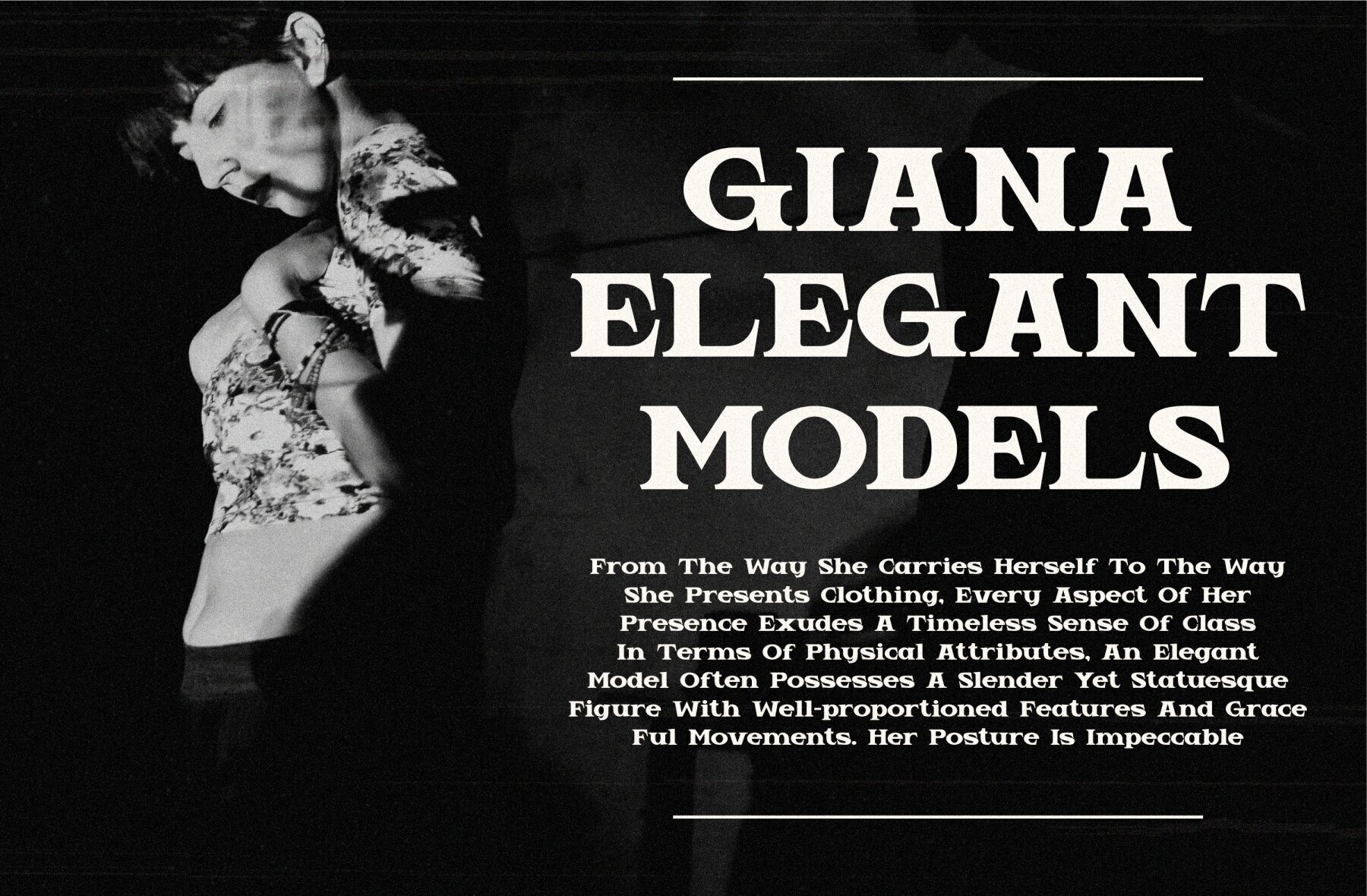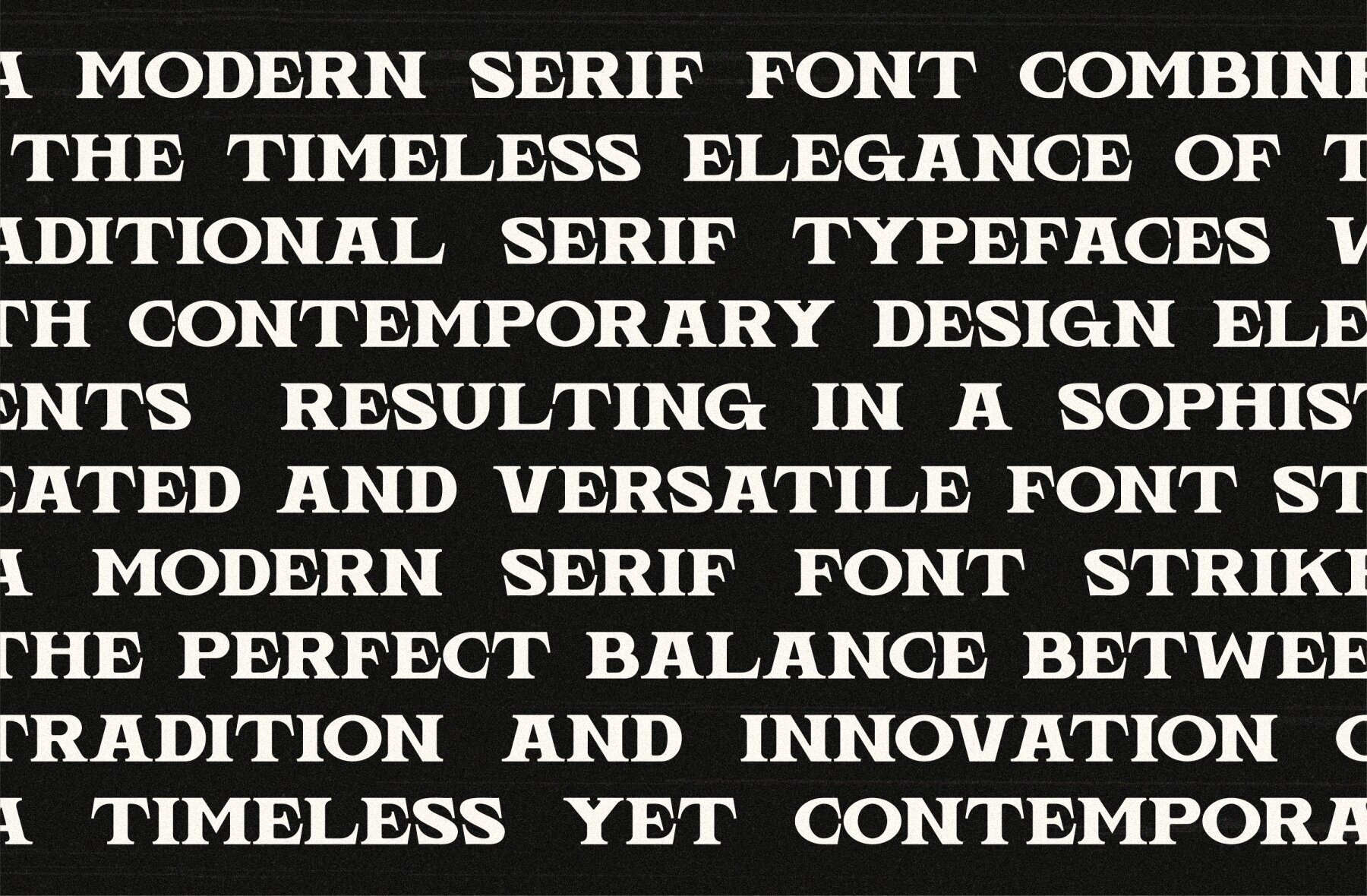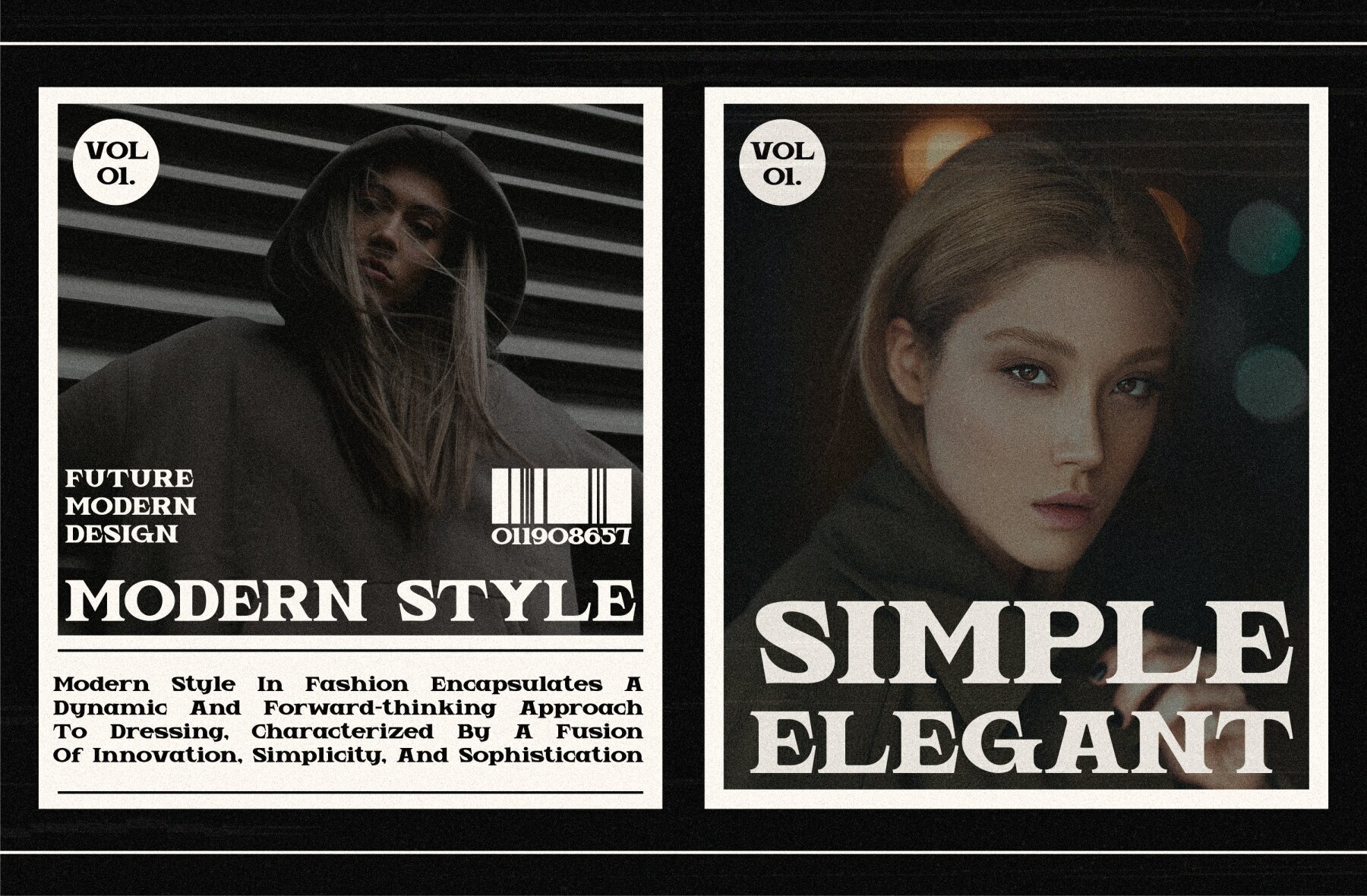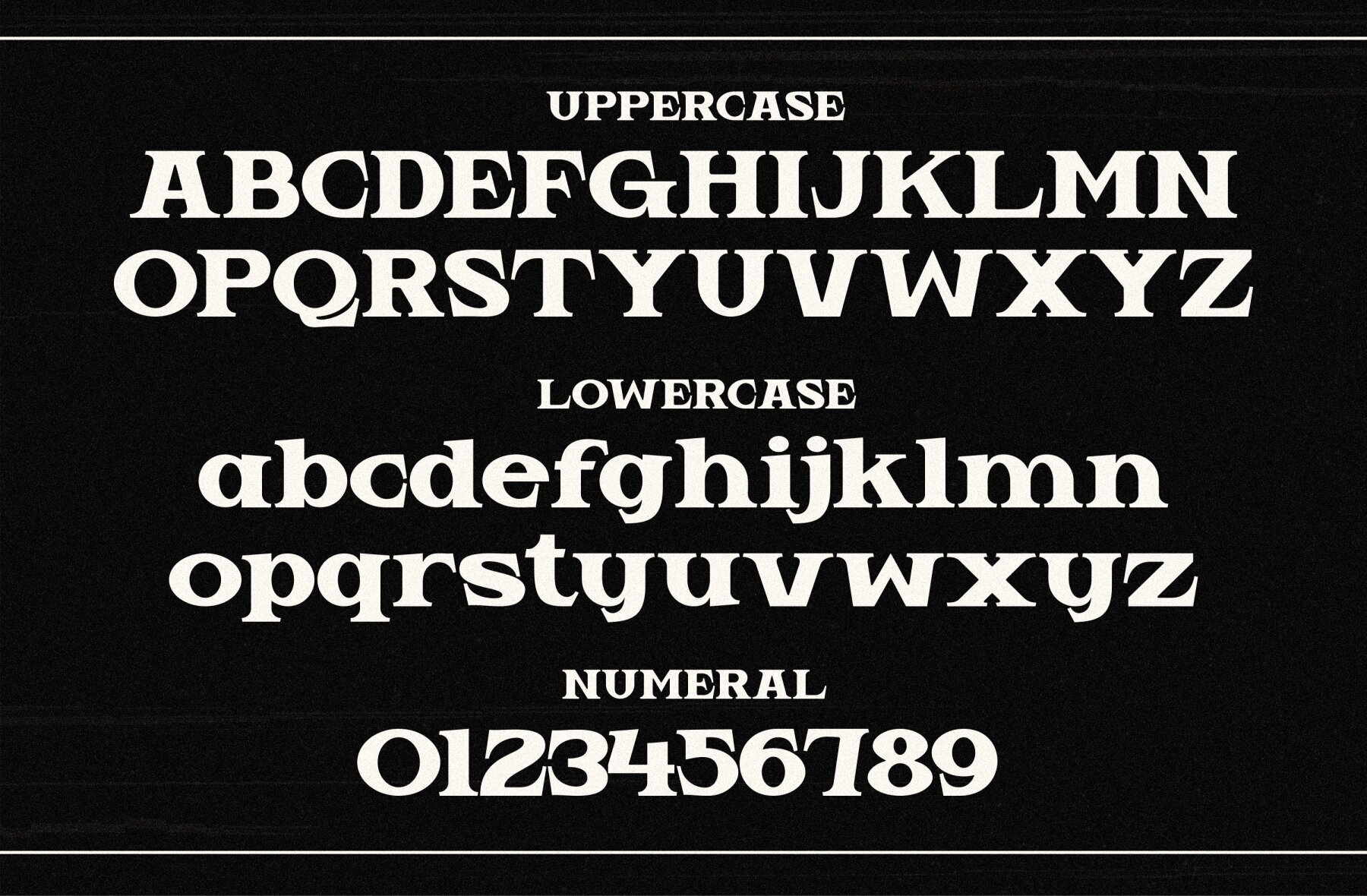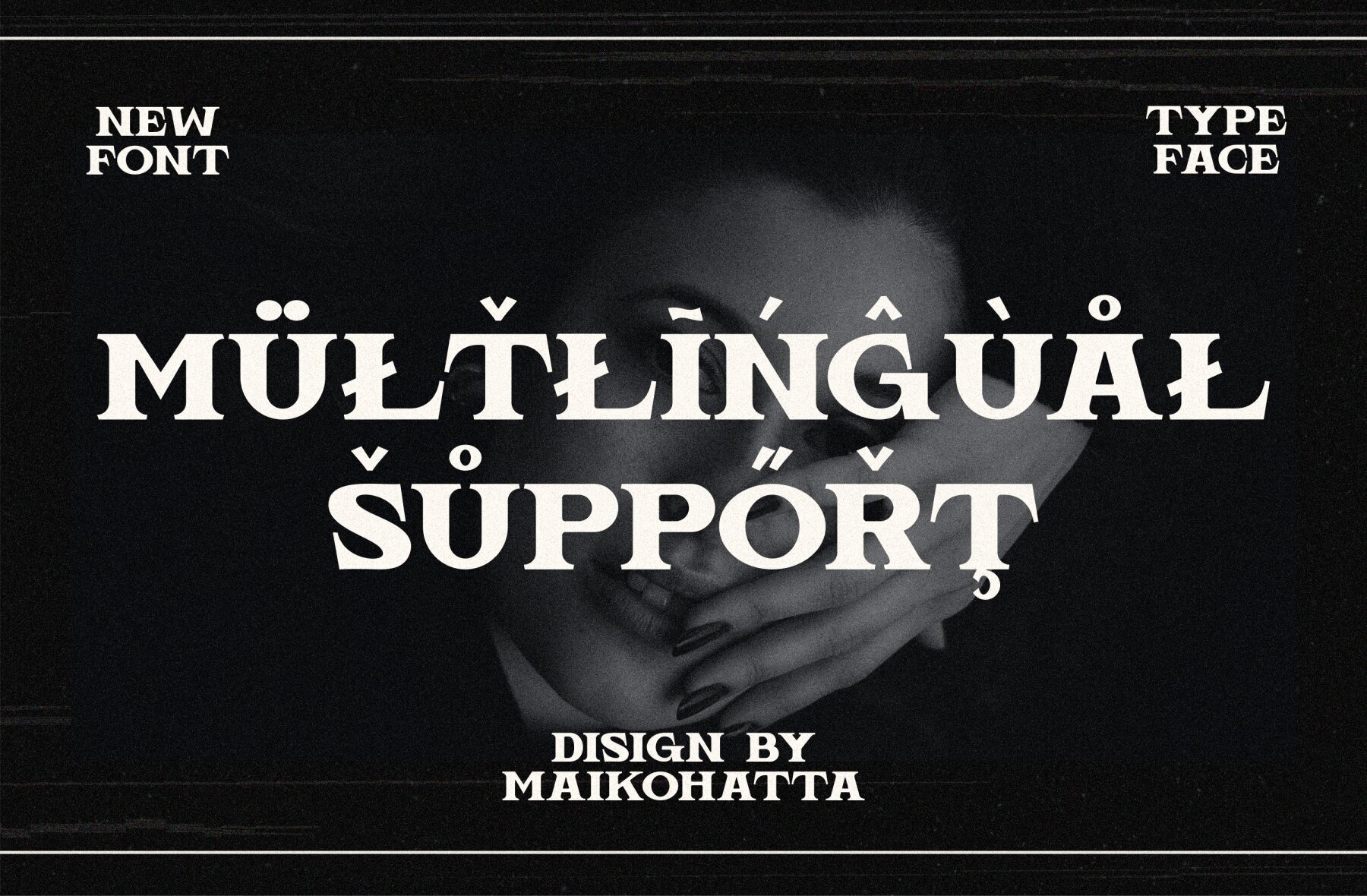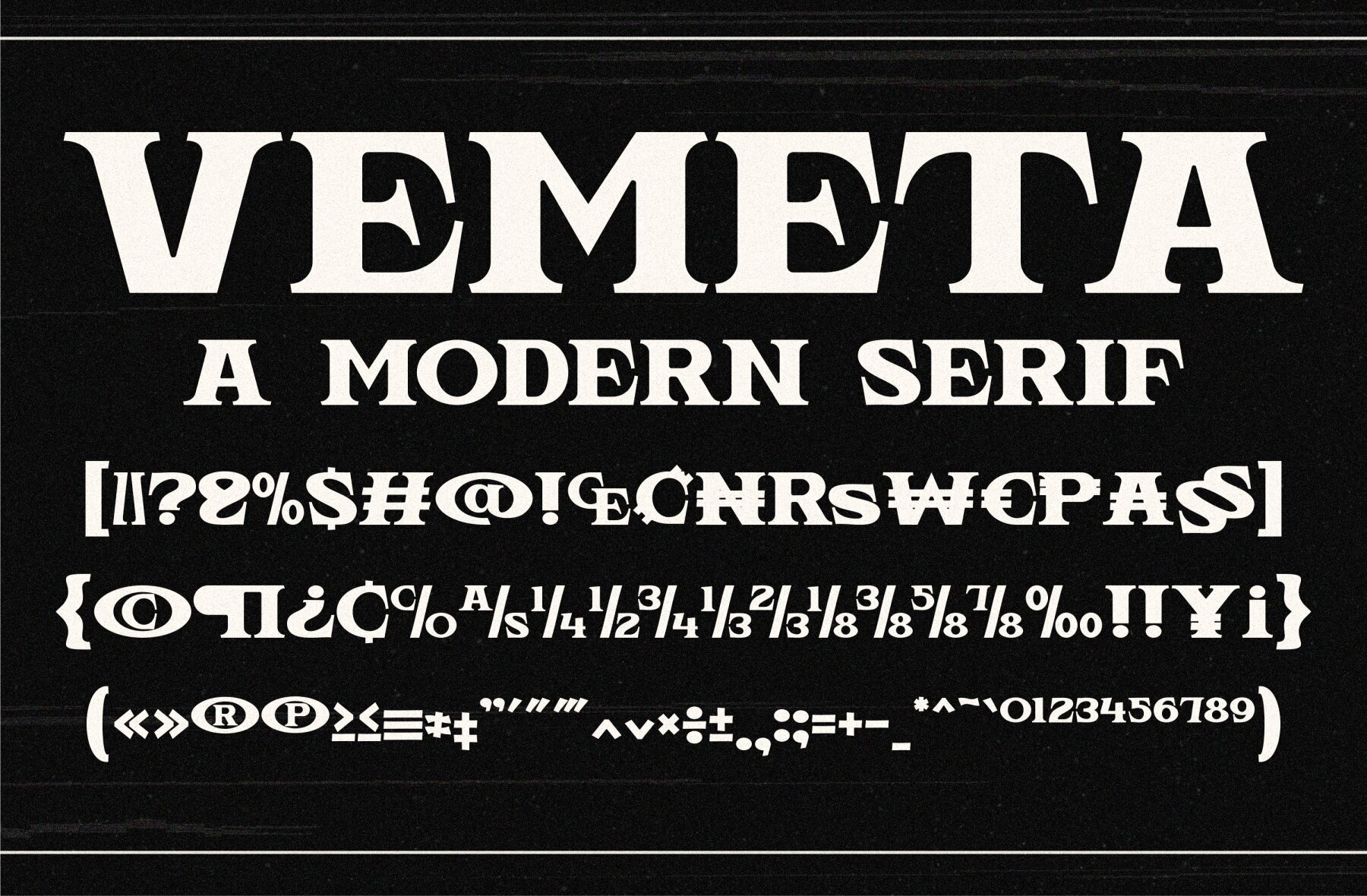
Vemeta Font
Vemeta Regular
Vemeta is a modern serif font that emphasizes a balanced proportion of stroke thickness and fineness, creating visuals that are both attractive and easy to read. Its bold distinction between thick and thin lines offers an understated yet distinctive touch.Vemeta by Maikohatta: Modern Serif Font